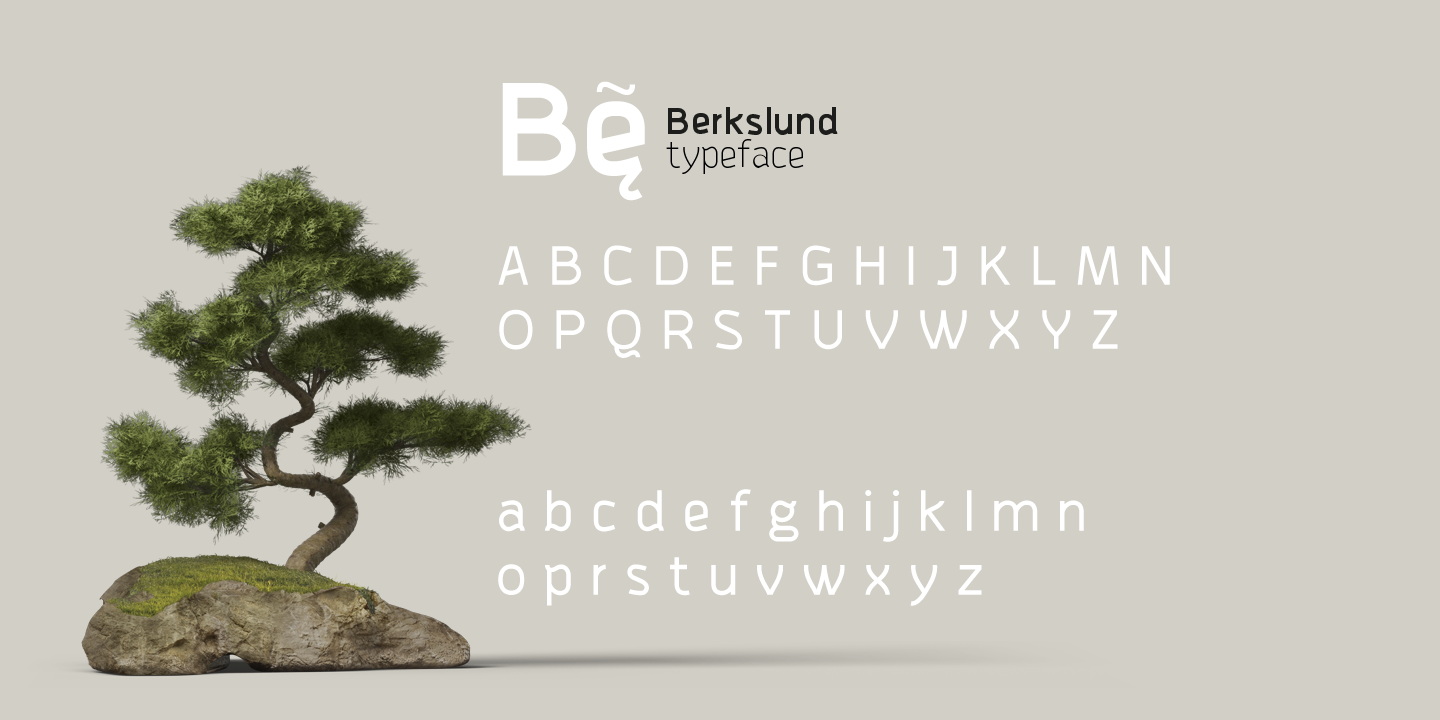
Berkslund Font is perfect for Scandinavian design studios, Nordic lifestyle branding, minimalist furniture companies, modern architectural firms, contemporary home decor marketing, sustainable design communications, hygge-inspired wellness centers, and clean aesthetic product packaging. This sophisticated typeface excels in applications where Nordic elegance, design purity, and Scandinavian sophistication are essential for connecting with audiences who appreciate minimalist beauty and the timeless appeal of Nordic design philosophy.
What makes Berkslund Font so exciting is its masterful embodiment of Scandinavian design principles that perfectly captures the essence of Nordic minimalism and functional beauty. The font features clean, geometric letterforms with subtle Scandinavian characteristics that convey both simplicity and sophistication. Its refined character evokes fjords and forest landscapes - essential qualities for brands serving design-conscious audiences who value clean aesthetics, sustainable living, and the peaceful harmony of Nordic lifestyle philosophy.
The Berkslund Font family includes multiple Nordic weights and minimalist variations that enhance its Scandinavian appeal. Some versions feature subtle organic elements that reflect natural Nordic landscapes, while others provide ultra-clean variants that maintain the font's sophisticated character with optimal readability for contemporary design applications and professional Nordic-inspired branding.
Whether you're creating branding for Scandinavian-inspired businesses, designing materials for minimalist lifestyle brands, or developing marketing campaigns for sustainable design products, Berkslund Font Free Download provides the Nordic sophistication your project requires. The font's Scandinavian character makes it particularly effective for brands targeting design enthusiasts and audiences who appreciate minimalist aesthetics, sustainable values, and the serene elegance of Nordic design traditions.
Embrace Nordic elegance with Berkslund Font and bring Scandinavian sophistication to your brand communications with typography that celebrates the pure beauty of minimalist design and Nordic lifestyle philosophy.